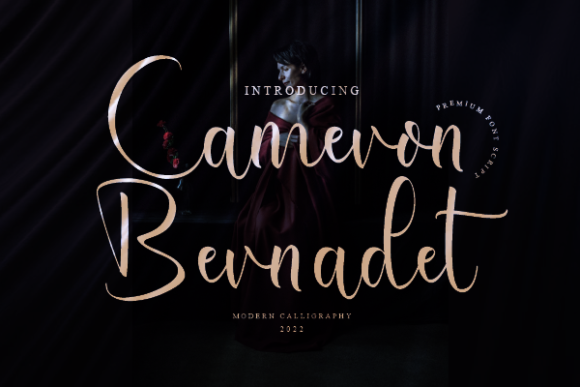
The Elusive Perfect Font: My Encounter with Cameron Bernadet
I’ll never forget the frustration of working on a branding project for a client, only to hit a roadblock when it came to choosing the perfect font. The design was almost complete, but something was missing – a font that would bring it all together. That’s when I stumbled upon Cameron Bernadet, a delicate and fashionable script font that exceeded my expectations. In this article, I’ll share my experience with Cameron Bernadet, its features, and how to make the most of it in your designs.
An Honest Review of Cameron Bernadet
- ✨ Elegant and refined design, perfect for high-end branding projects
- ✅ Highly versatile, suitable for logos, t-shirt printing, and creative products
- 💫 Beautifully crafted letters with intricate details
- 👍 Excellent readability, even at smaller font sizes
While Cameron Bernadet is an exceptional font, there are a few things to keep in mind:
- ⚠️ Limited use of uppercase letters, which may require creative workarounds
- 🤔 Not ideal for body text or lengthy paragraphs, as it may become difficult to read
- Experiment with OpenType features, such as stylistic alternates and glyphs, to add visual interest
The Story Behind Cameron Bernadet
Cameron Bernadet was designed with the intention of creating a beautiful, elegant script font that would inspire creativity and sophistication. The designer aimed to craft a font that would be both refined and versatile, suitable for a wide range of applications. While the real story behind the font’s creation may be unknown, its exceptional design and functionality have made it a favorite among designers and crafters.
| Font Name | Cameron Bernadet Font |
| Author | fiqiart |
| What is Cameron Bernadet best suited for? | Cameron Bernadet is perfect for branding projects, logos, t-shirt printing, and creative products. |
| Can I use Cameron Bernadet for body text? | While Cameron Bernadet is an excellent font, it’s not ideal for lengthy paragraphs or body text. Its elegance shines best in headlines, titles, or short text snippets. |